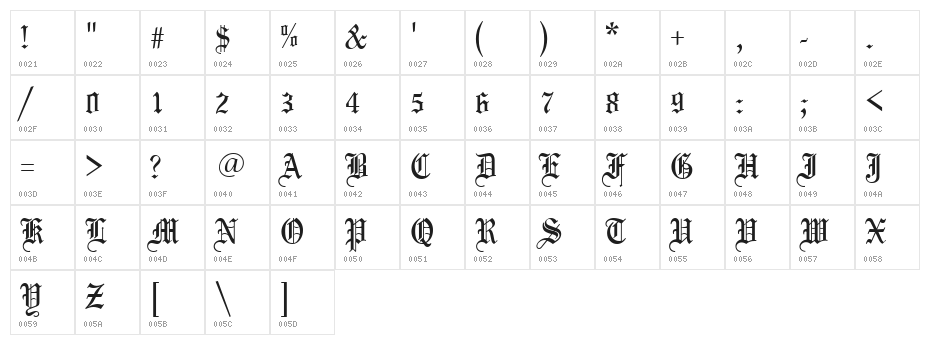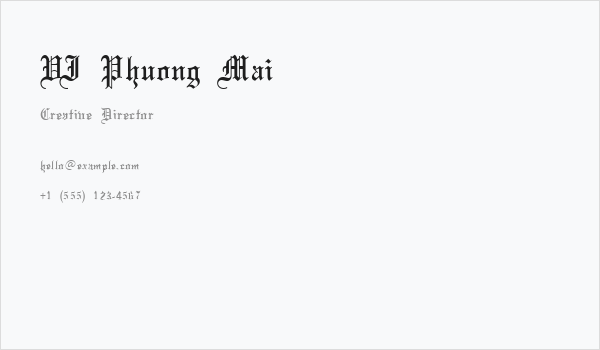
VI Phuong Mai Font
VI Phuong Mai Description
This font exudes a classic and ornate style reminiscent of traditional calligraphy and Gothic script. The uppercase letters are adorned with intricate flourishes and sharp serifs, giving them a majestic and formal appearance. The lowercase letters maintain a similar aesthetic, with elegant curves and pointed edges that enhance their readability while preserving the decorative nature. The numerals are bold and consistent with the overall style, featuring angular lines and a strong presence. Special characters are equally ornate, integrating seamlessly into the font's cohesive design. This font is ideal for projects that require a touch of historical elegance and sophistication.
| Proposed Projects | Suitable for wedding invitations, historical documents, book covers, and branding that requires a vintage or formal touch. |